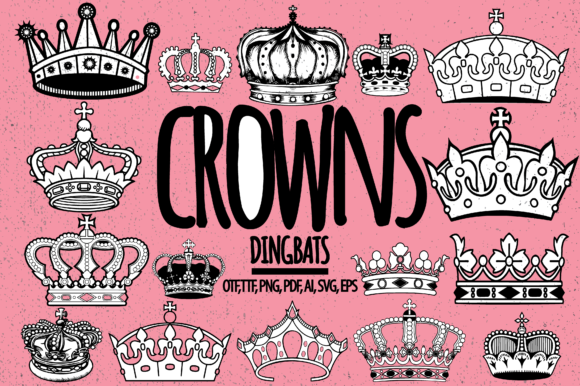
**Crowns Font: Unleash Your Creativity with Regal Charm**
In the realm of digital artistry, where fonts reign supreme, the Crowns Font emerges as a regal masterpiece, a crown jewel adorning the desktop icons of discerning users. Crafted with meticulous attention to detail by the visionary artisans at Minimalistartstudio, Crowns is not merely a font; it's an invitation to unlock your creative potential and elevate your digital presence.
Crowns is a dingbats typeface, a genre of fonts that transcends the boundaries of traditional letterforms, venturing into the realm of symbols, icons, and intricate designs. With Crowns, the mundane act of labeling desktop icons transforms into an artistic endeavor, a canvas upon which you can paint your digital world with a touch of royalty.
Imagine your desktop, a once-dull expanse of uniformity, now adorned with a menagerie of crowns, each icon a unique emblem of your personal style. With Crowns, you can conjure up a desktop kingdom where every click is a coronation, every folder a royal chamber, and every file a precious jewel.
Crowns offers an astonishing repertoire of 60 distinct crown doodles, each meticulously crafted to capture the essence of majesty and elegance. Whether you prefer the stately grandeur of a classic crown or the whimsical charm of a playful tiara, Crowns has a design to match your every mood and desire.
With Crowns, the possibilities are as limitless as your imagination. Unleash your inner artist and let your desktop icons reflect your true self. Transform the mundane into the magnificent, the ordinary into the extraordinary. With Crowns, your desktop will be the envy of all who behold it, a testament to your discerning taste and creative flair.